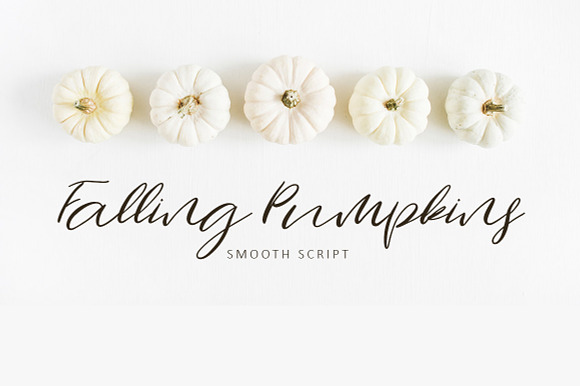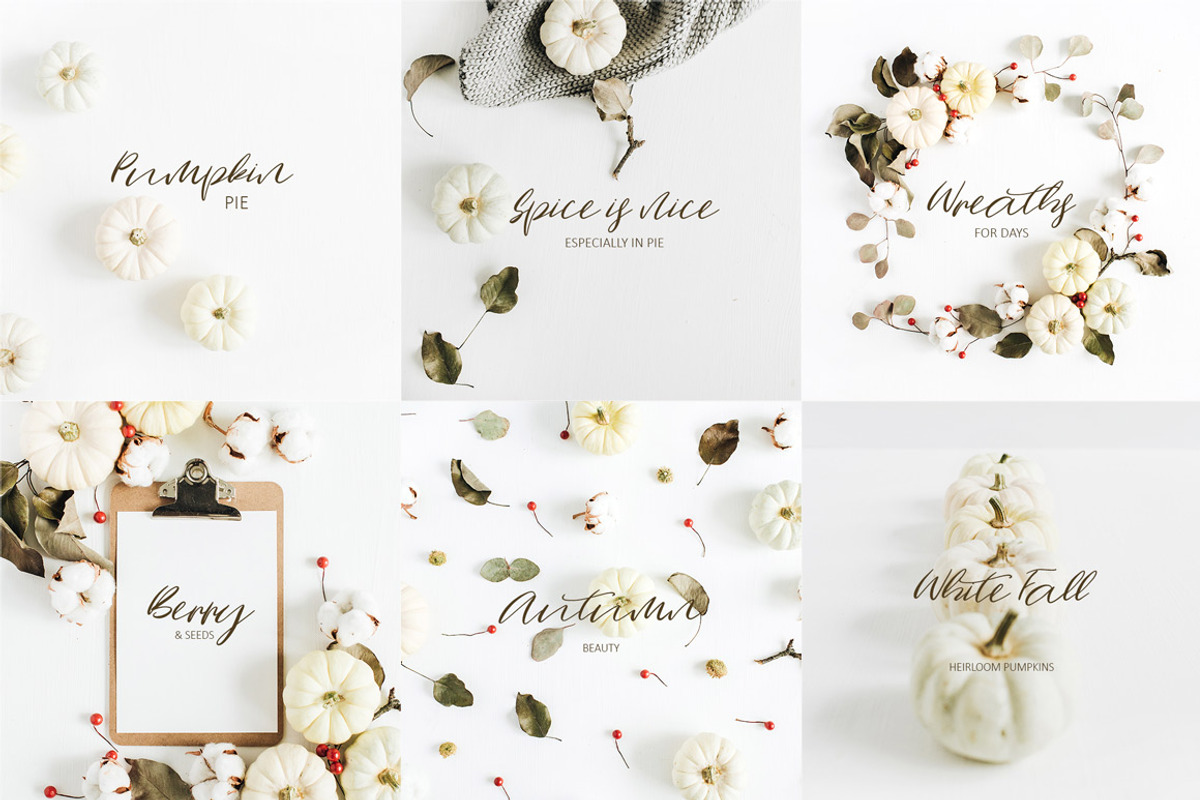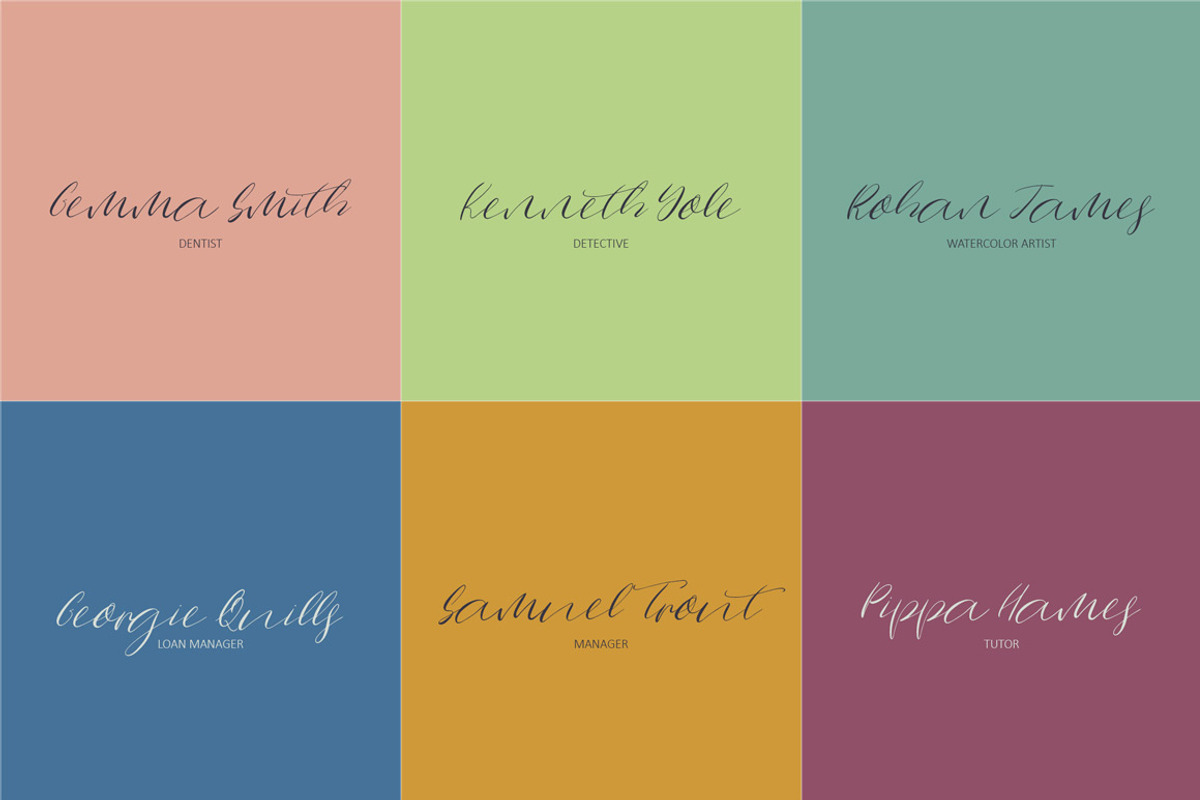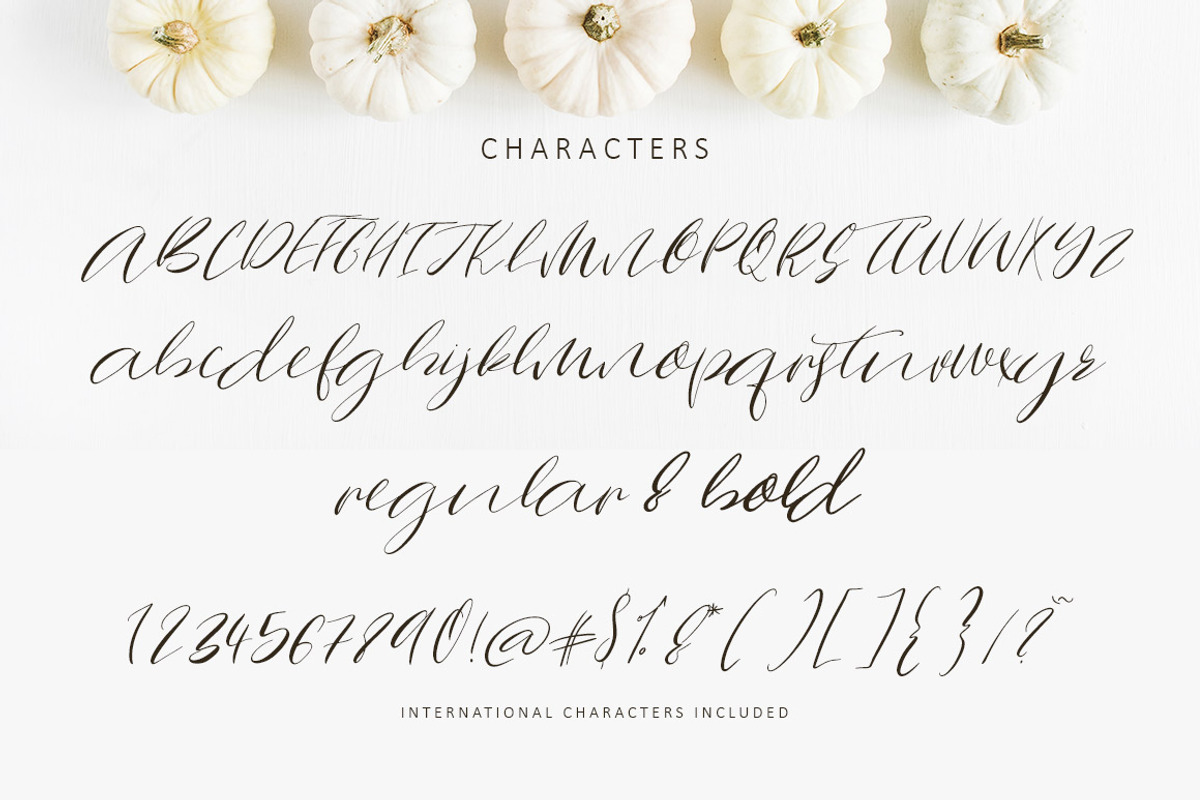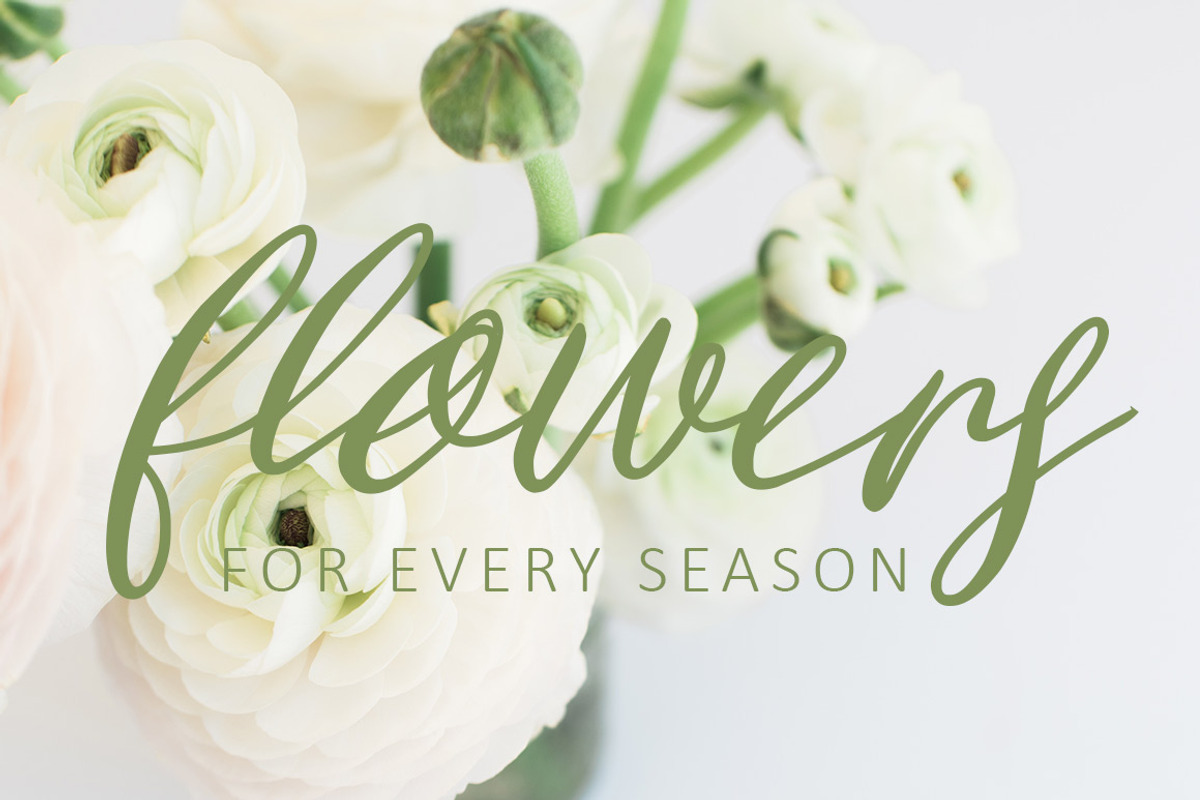
Falling Pumpkins Script Font
Introducing Falling Pumpkins
This is a beautiful hand written script font, perfect for wedding stationery, invitations, quotes, etc.
Falling Pumpkins supports international characters.
Falling Pumpkins Script Font by Creativeqube Design fits naturally into Branding, posters, packaging, typography.